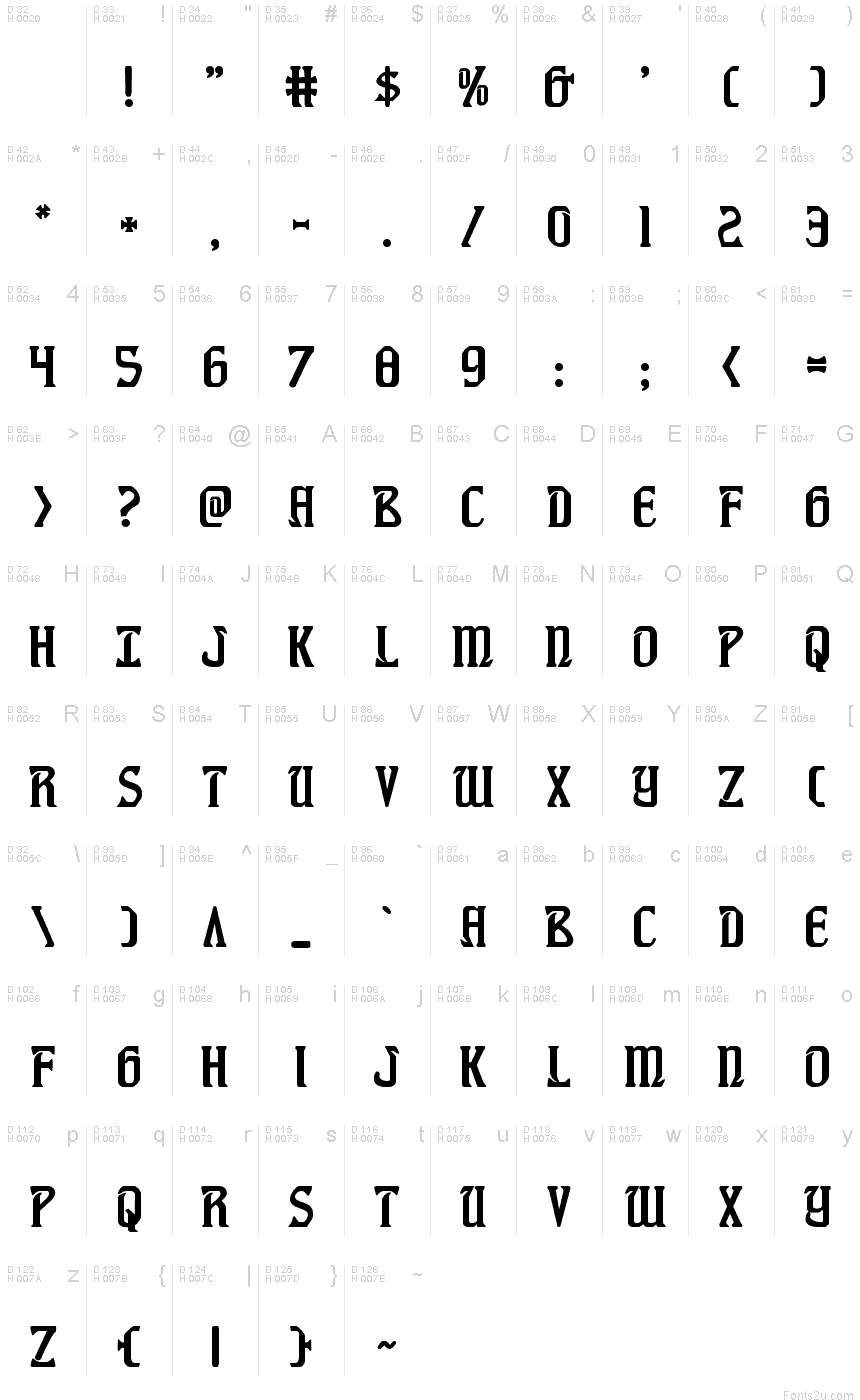
Fiddler's Cove by Iconian Fonts is a free old-school decorative display font with tall, tightly drawn letters, exaggerated verticals, and sharp blackletter echoes. Broad vertical strokes alternate with fine cuts, hooked feet, pointed crowns, deep notches, and sweeping interior curves, producing an unusually severe, almost architectural silhouette softened by occasional rounded joins.
It can turn a poster title into a theatrical sign, especially for gothic music and dark fantasy events. The lettering also suits dramatic book covers and game artwork. For specialty drink packaging, its carved, heraldic shapes can become the central emblem of the brand rather than simple text.
Fiddler's Cove